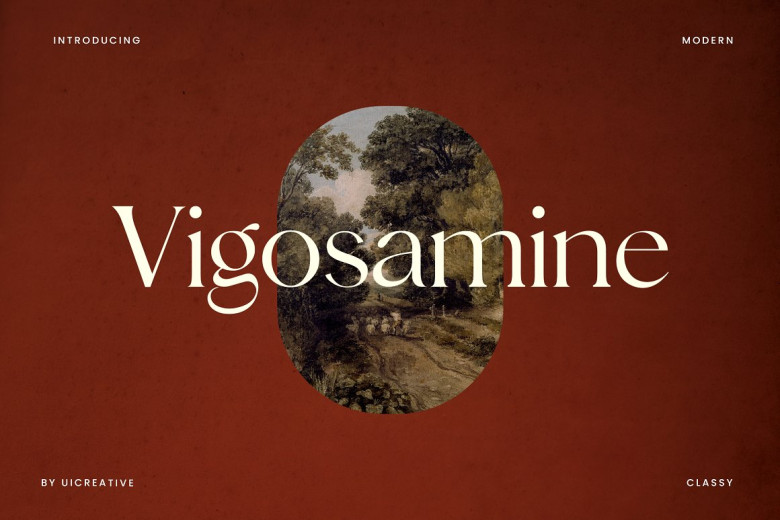
Vigosamine is a classy modern serif font that feels beautiful classy, elegant and modern. This font is perfectly suited for a wide variety of projects such as signature, stationery, logo, wedding, typography quotes necklace layout magazine formatting or book cover letterhead website header or clothes label cloth marking packaging design and much more! Fashion-related branding or editorial design also exhibits strong elements of both masculinity and femininity.
Vigosamine Luxury Serif Font